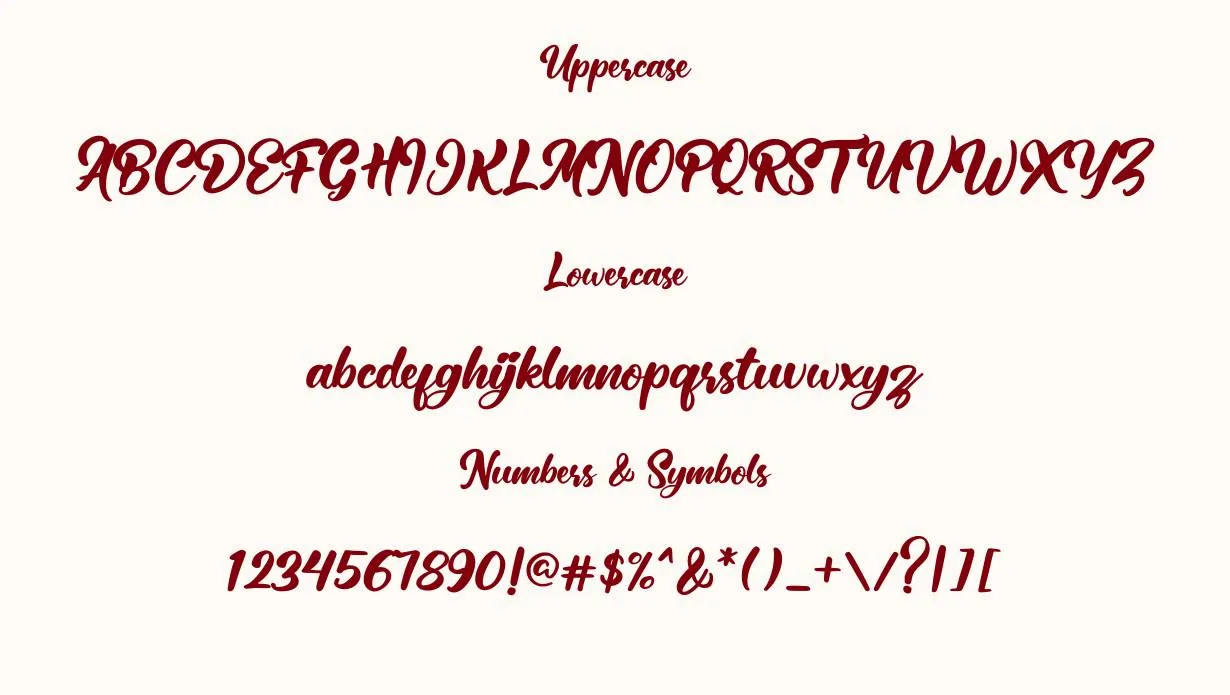
The Retrofest font is a fun and attention-grabbing typeface often seen in designs needing a lively and distinct look. Its classic and ornamental letters are ideal for expressing a playful and dynamic message.
This font is often used in posters, album covers, or artistic branding. The weight of Retrofest font varies from regular to bold, offering flexibility in emphasizing text.
| Name | Retrofest Font |
| Designer | RaffaSyad Studio |